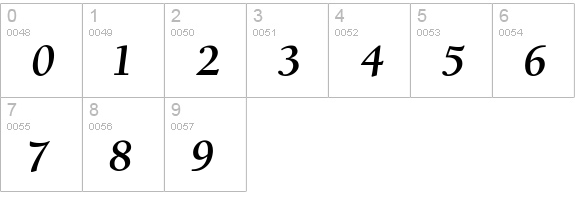
Berkeley Bold Italic Font Details
Berkeley Bold Italic is a strong, high-contrast, italic variant in the Berkeley typeface family \xE2\x80\x94 well suited to headlines, attention-grabbing titles, and strong calls-to-action.
Introducing the captivating and distinctive Berkeley Bold Italic font - a versatile typeface that exudes elegance and sophistication. With its bold and italicized design, this font commands attention and adds a touch of flair to any project. The combination of thick strokes and slanted letters creates a dynamic visual impact that is sure to make your text stand out. What's even better is that Berkeley Bold Italic is available for free download at FontsMarket.com. This means you can easily incorporate this premium font into your designs without any cost. Whether you're working on branding materials, advertising campaigns, or creative projects, Berkeley Bold Italic is the perfect choice to elevate your typography game. Download it now and unleash your creativity with this stunning typeface.